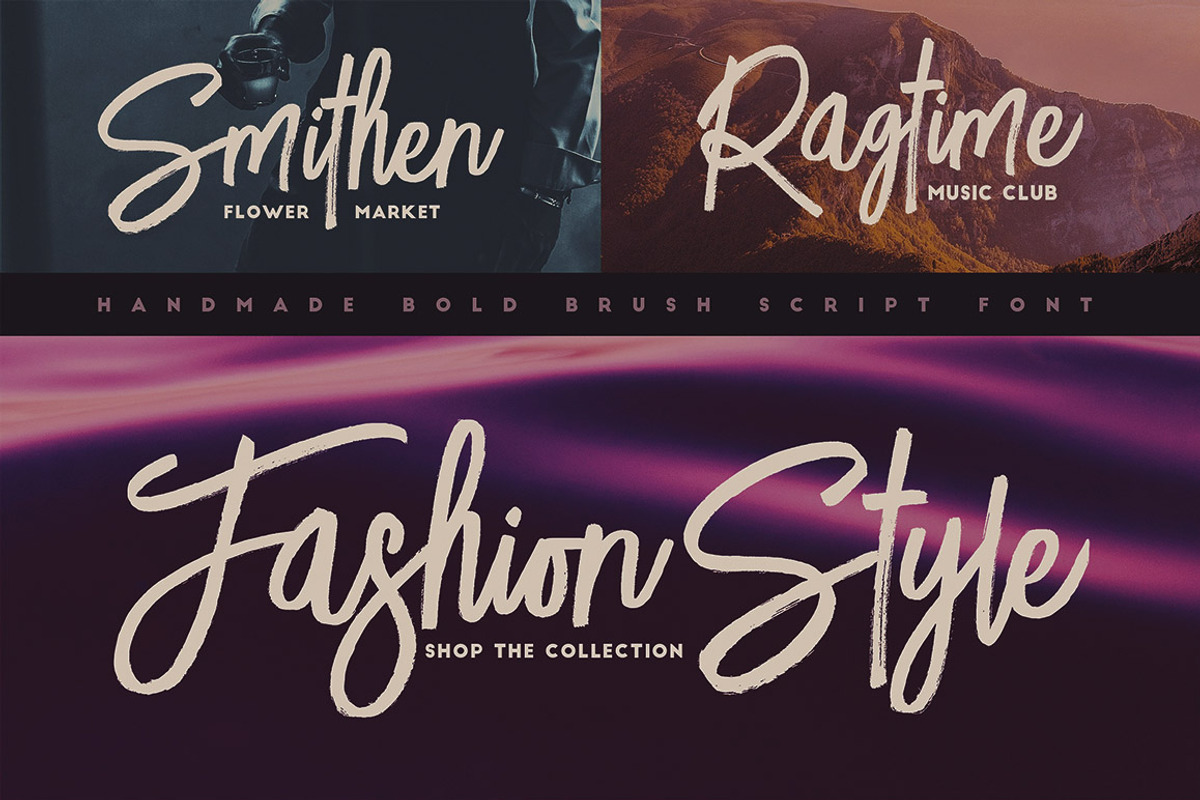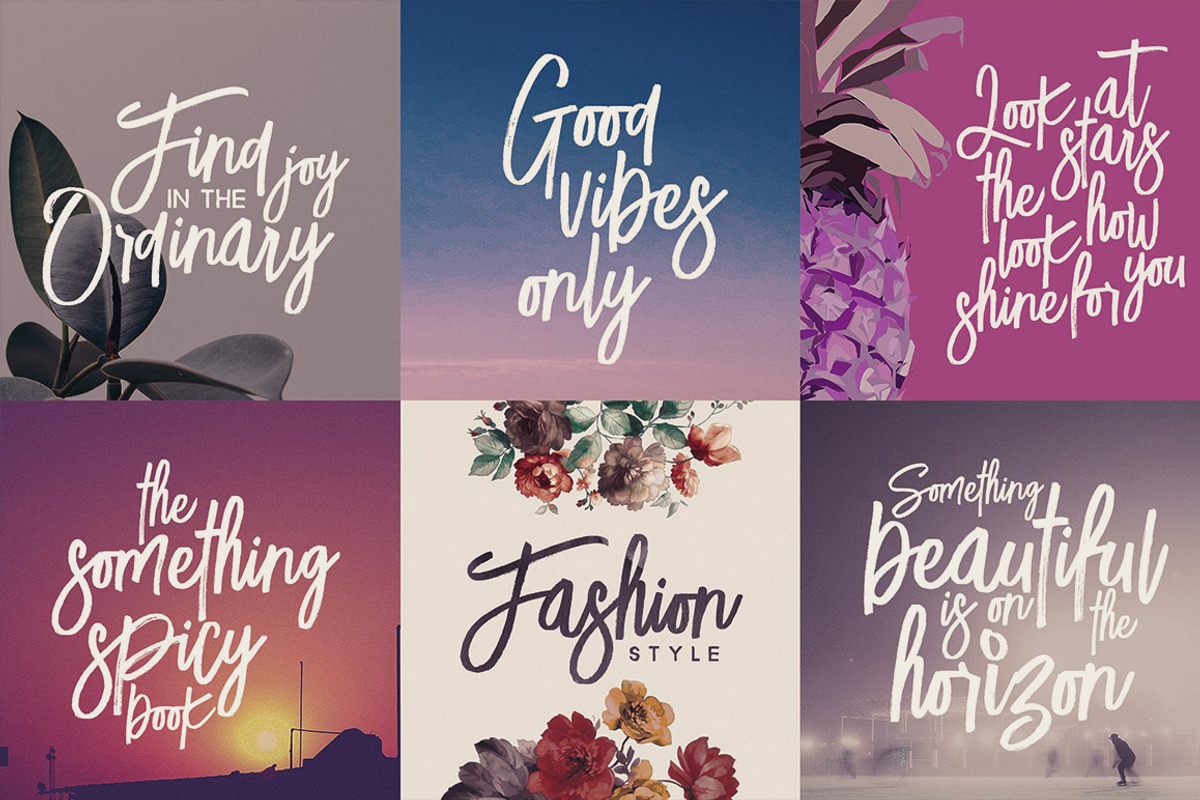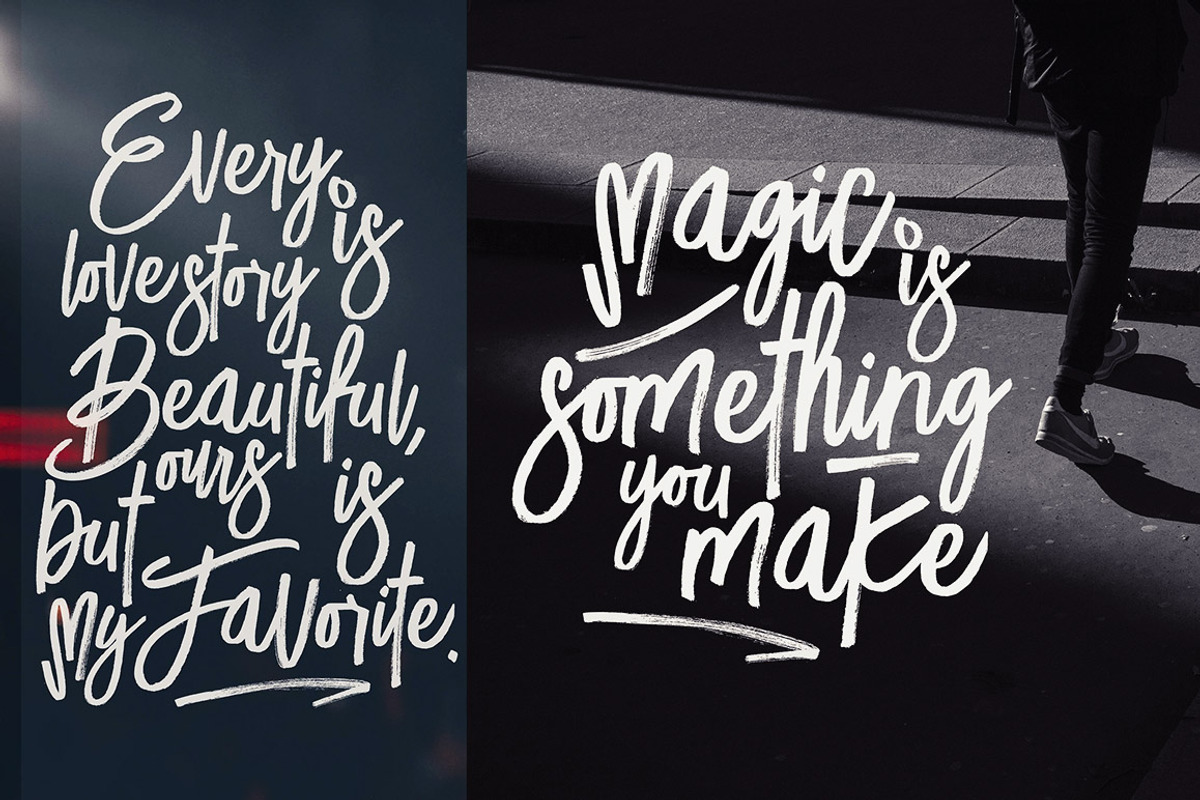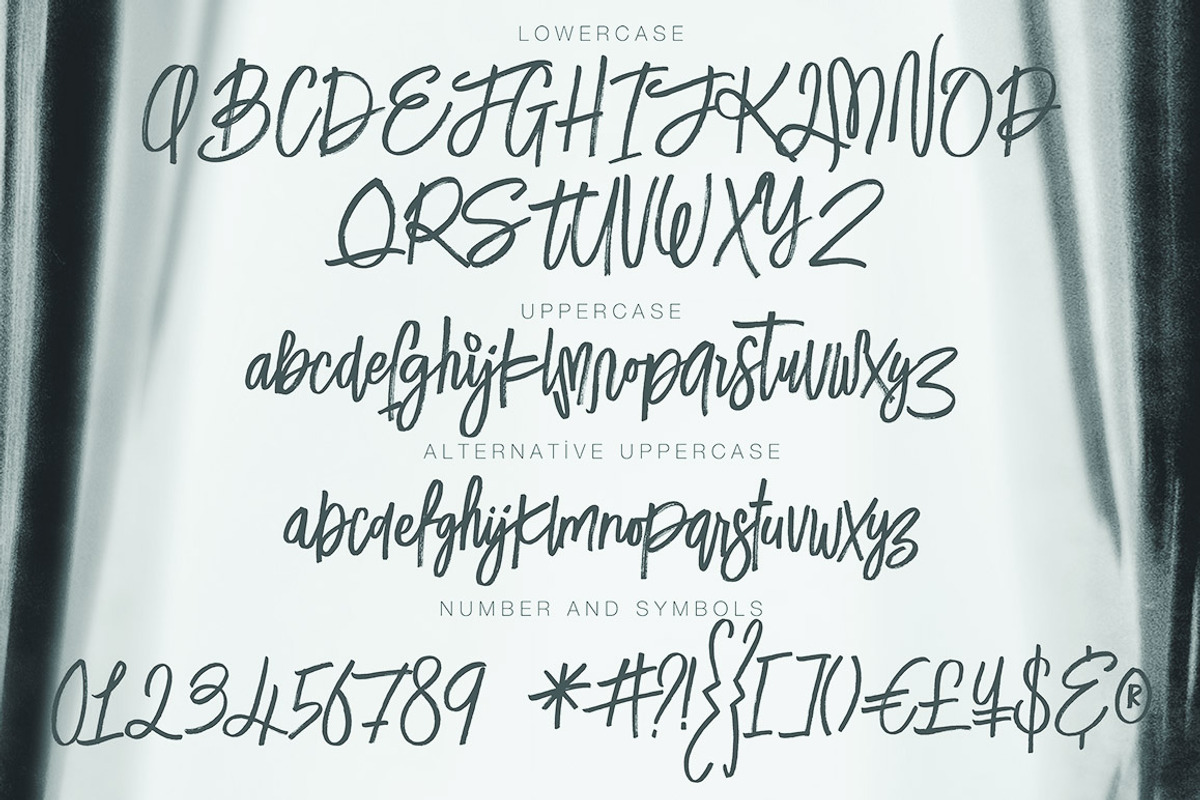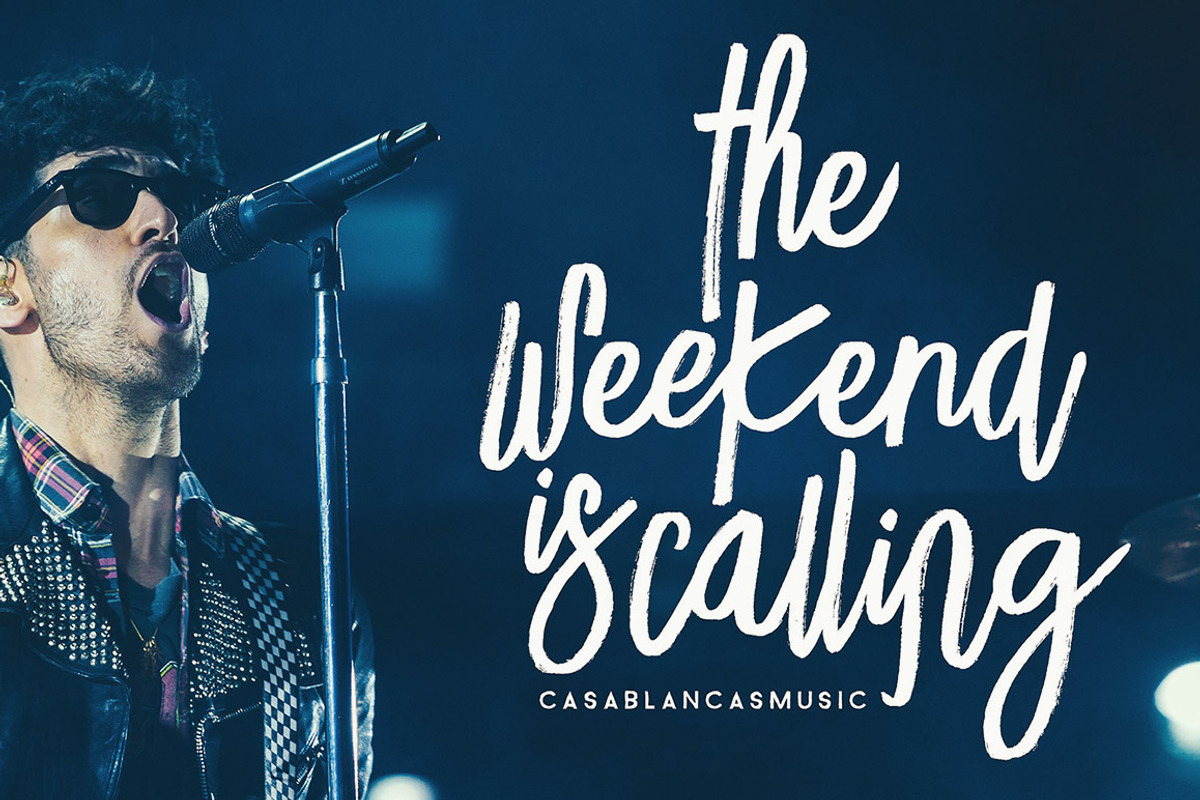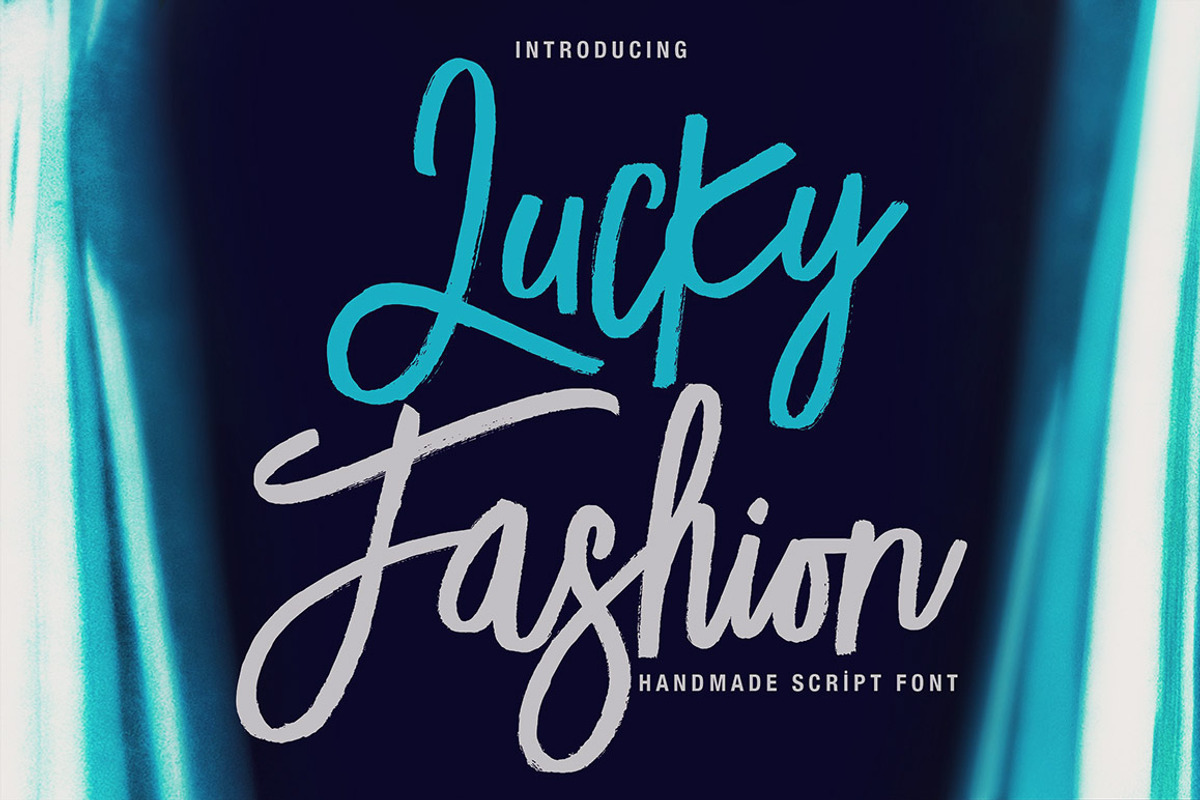
Lucky Fashion Brush Font
Cool handwritten brush style display font with dancing baseline for your new projects. Great for grunge or artistic projects!
Why Lucky Fashion Brush Font is worth a look
Lucky Fashion Brush Font by Cruzine fits naturally into Branding, posters, packaging, typography.